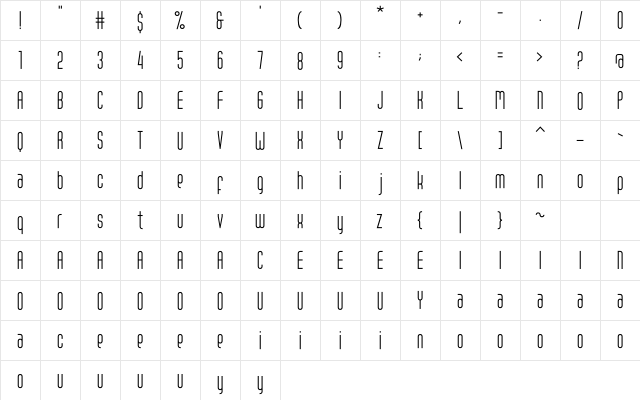
TonyTony Demo Font Preview
TonyTony Demo
TonyTony Demo Font Details
| Style | Demo |
| Foundry | Factory738 |
| Designer | Wahyu Setiya Rahmawan |
Design Context for TonyTony Typeface
TonyTony offers clean, dependable letterforms without strong stylistic allegiance, making it a practical choice for designers who need flexibility.